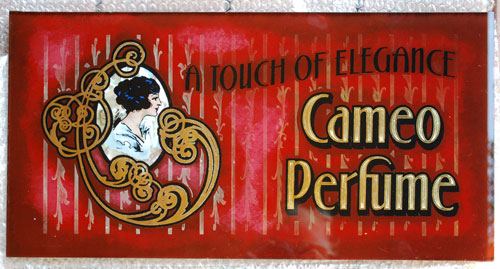
Glorious glass
Bobbie Rackow sent these to me last night, and my photos don't come close to doing these justice- they are truly magnificent pieces! She's been going full speed ahead after taking the Studden-Webber course at Boise and there are lots of "firsts" in these... Well done, Kid![img
Well done Bobbie. The cat looks good in black. :)
Thank you Kelly, the cat is actually brown, the chipping was done in mica powders, my first experiment with them, & a gem in the center of the C.
The perfume words were done in 23 K, the florishes around the cameo in 12 k. Danny acid etched the perfume letters for me, then sent me the glass to finish. He did a very nice job of it!
Very nice work.How is the back ground on the perfume done ?
I used a sponge on the background Roderick. I still need some practice at it, & more Smith's Cream with it too, I think I tried to cover too much area all at once & it was setting up on me fast. I guess the next time I will try my airbrush. I haven't tried that on glass yet. So many things to try!